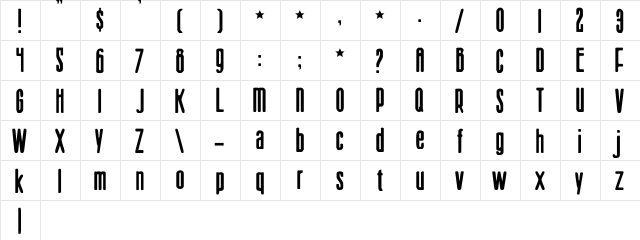
Sister Europe Regular
Design Context for Sister Europe Typeface
Sister Europe is a composed and adaptable typeface that performs quietly and consistently across a wide range of design contexts.